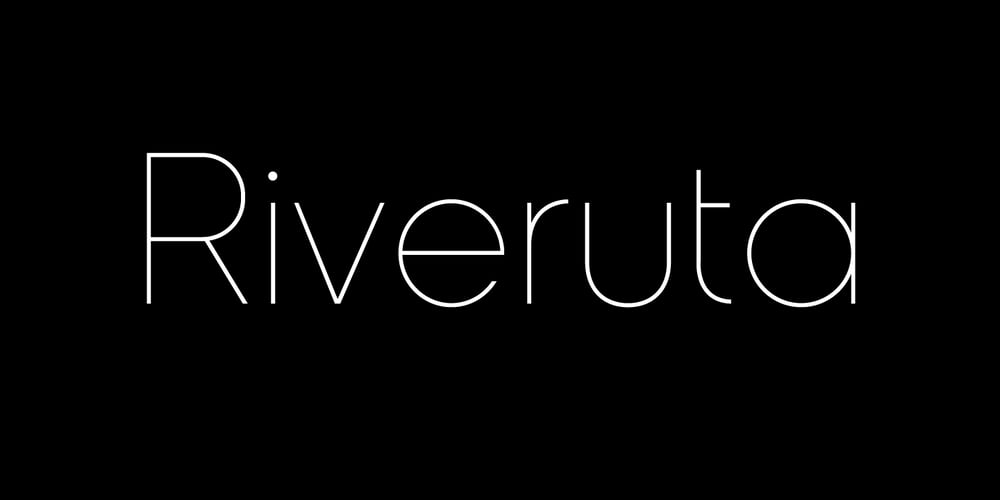
Riveruta
Riveruta font
Riveruta Font Family was designed by Andrii Shevchyk and published by Andfonts. Riveruta contains 5 styles and family package options. Working as a graphic designer for a long time, I realized importance of alternates. Riveruta is a modern typeface designed especially for those who like to experiment with letters. Lots of alternative letters help in creating logos or names. Create your own unique combination using different options. Suitable for any business, this font is gender neutral and should appeal to most people.